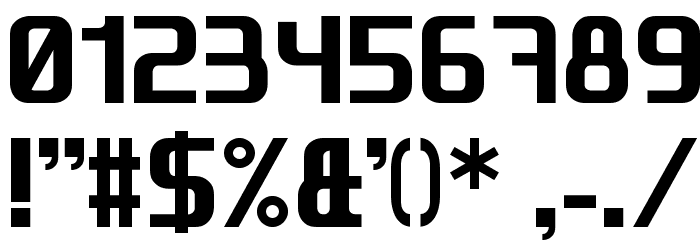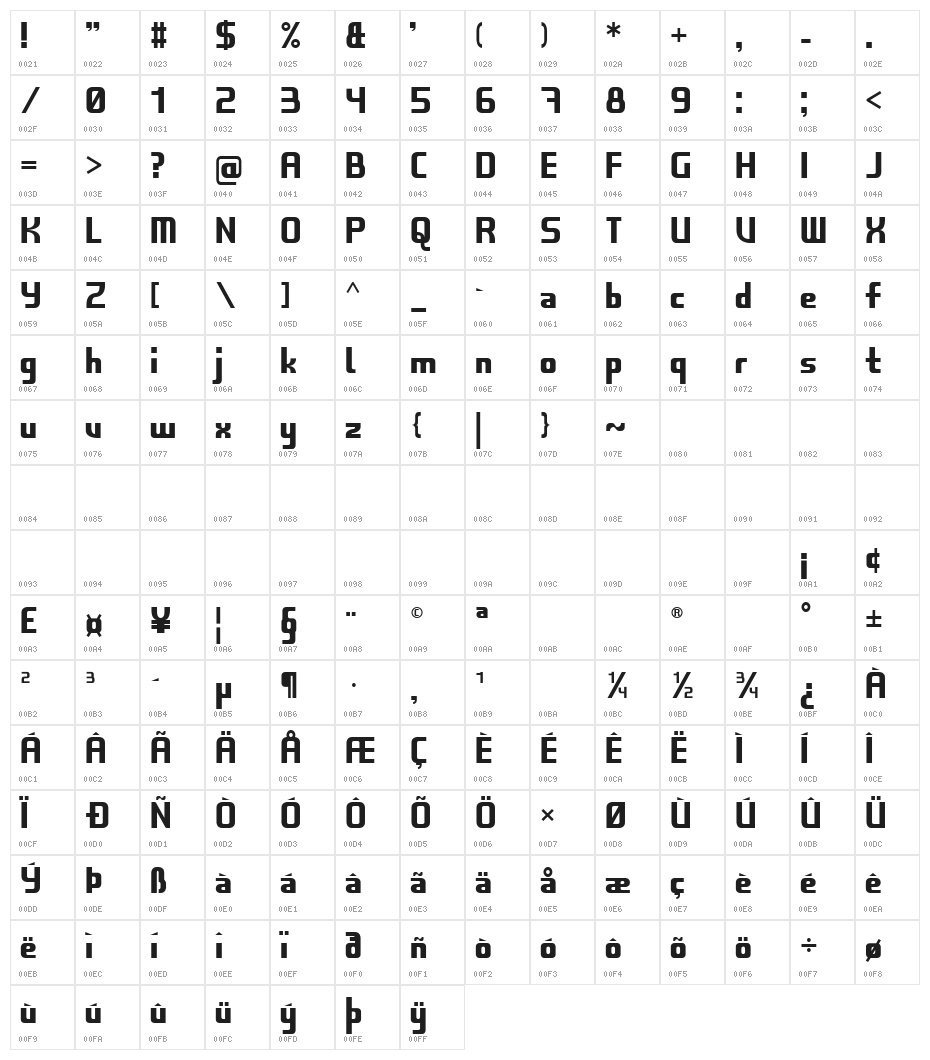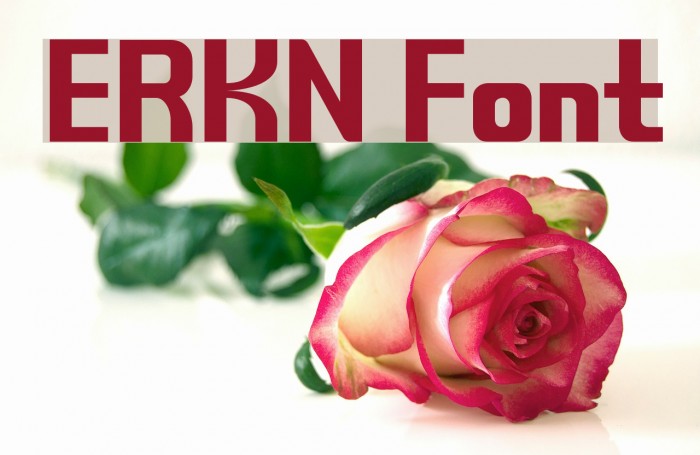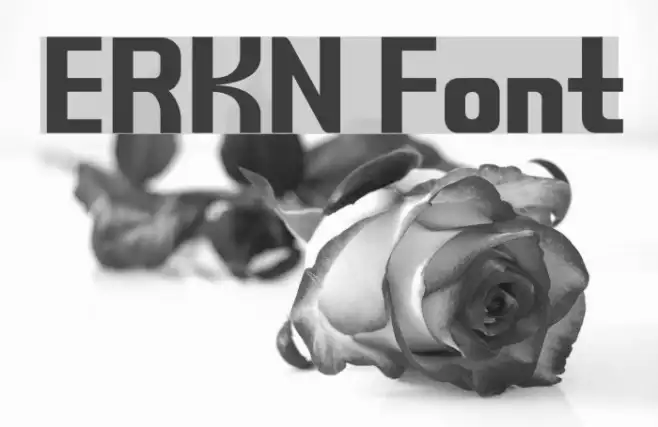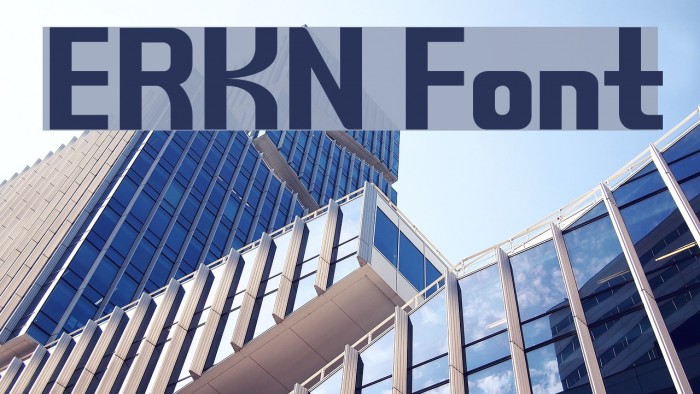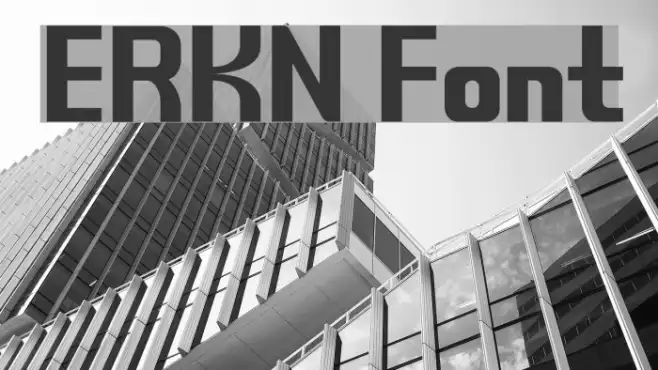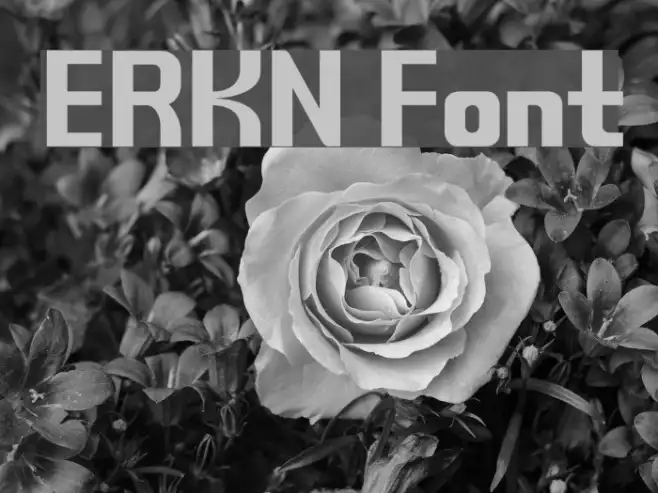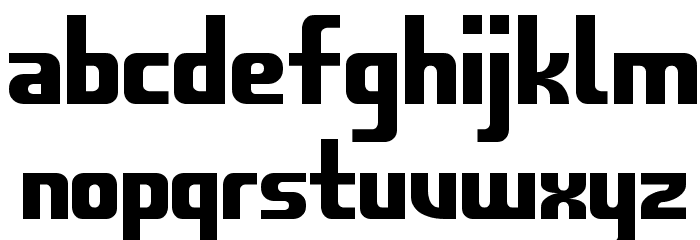
ERKN Font
ERKN Description
This font features a bold and modern design with a geometric structure. The characters are wide and have a strong presence, making them ideal for impactful headlines. The uppercase and lowercase letters maintain a consistent style, with rounded edges and uniform stroke widths. The numerals are clear and easy to read, while the special characters complement the overall design with their bold and distinctive shapes. This font's clean lines and contemporary aesthetic make it versatile for various design projects.